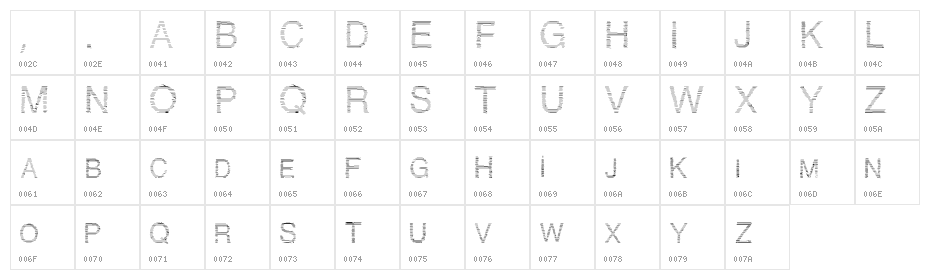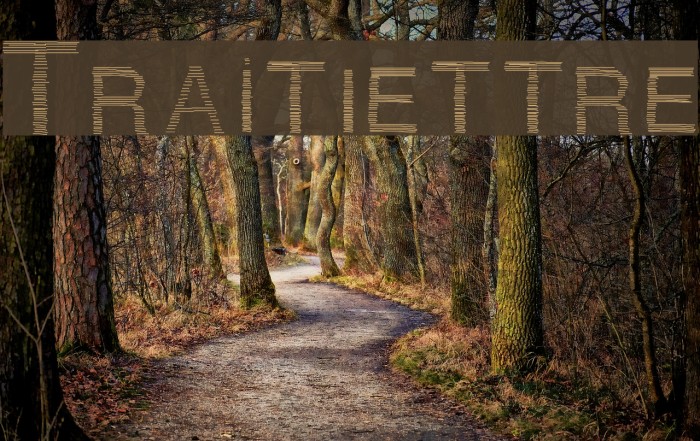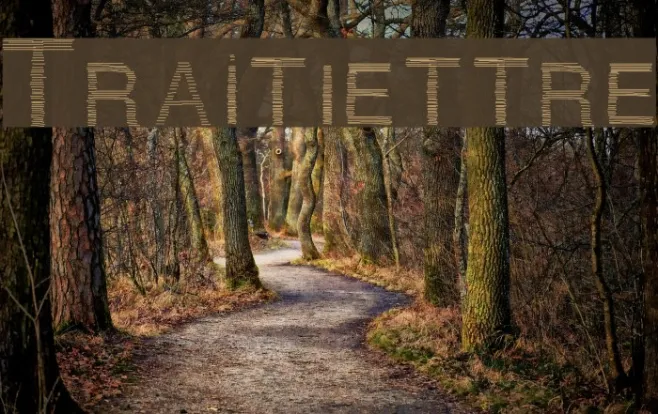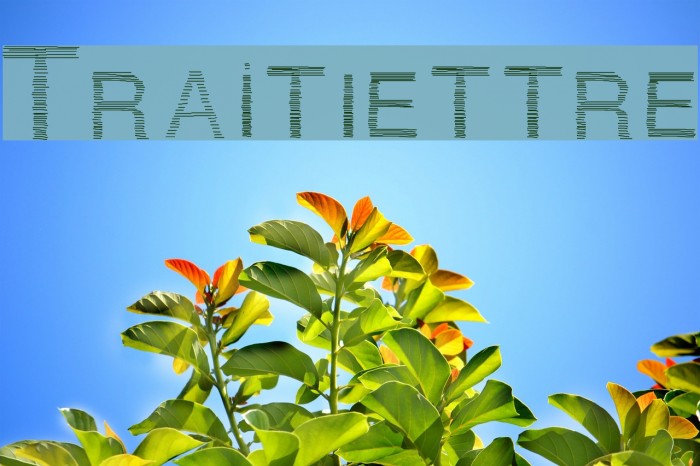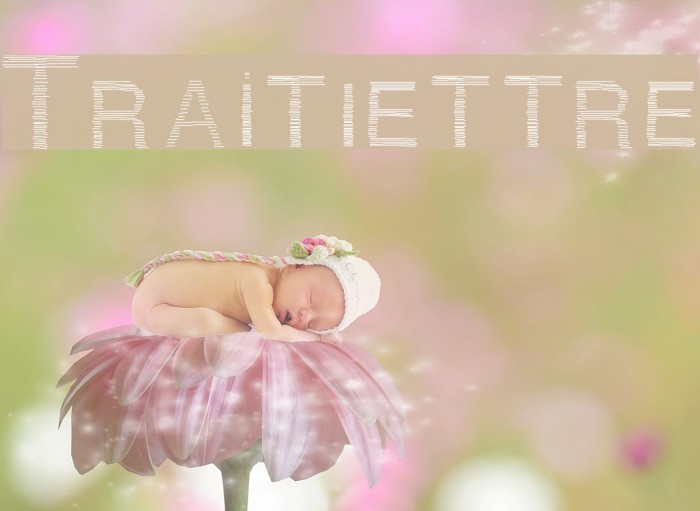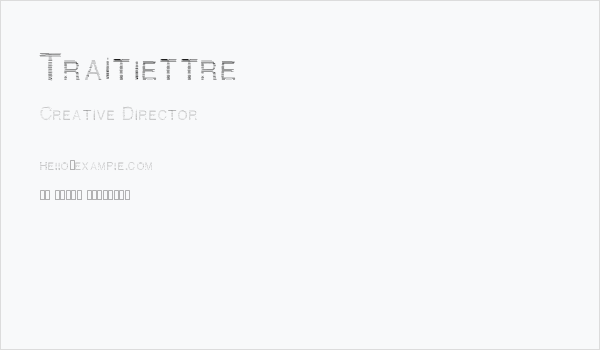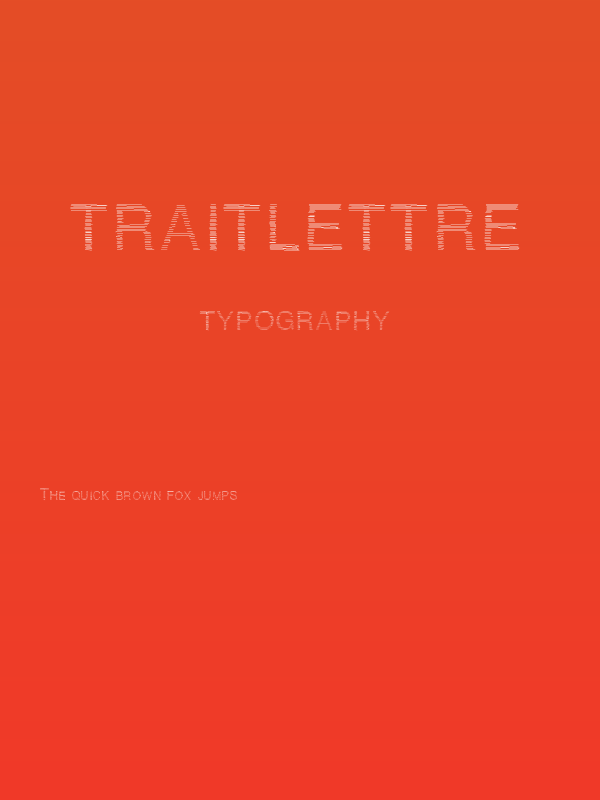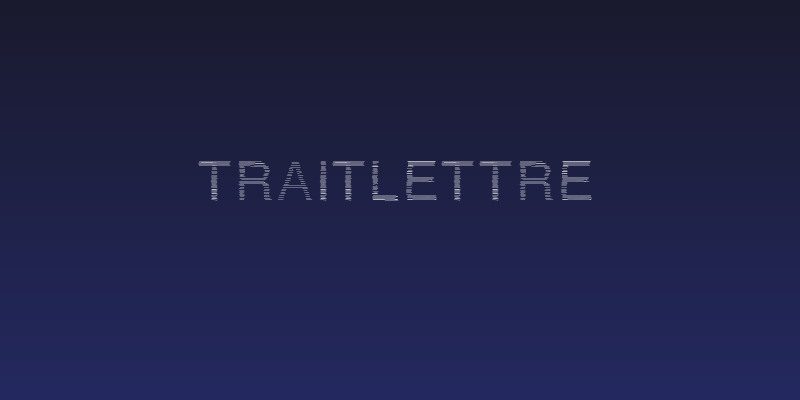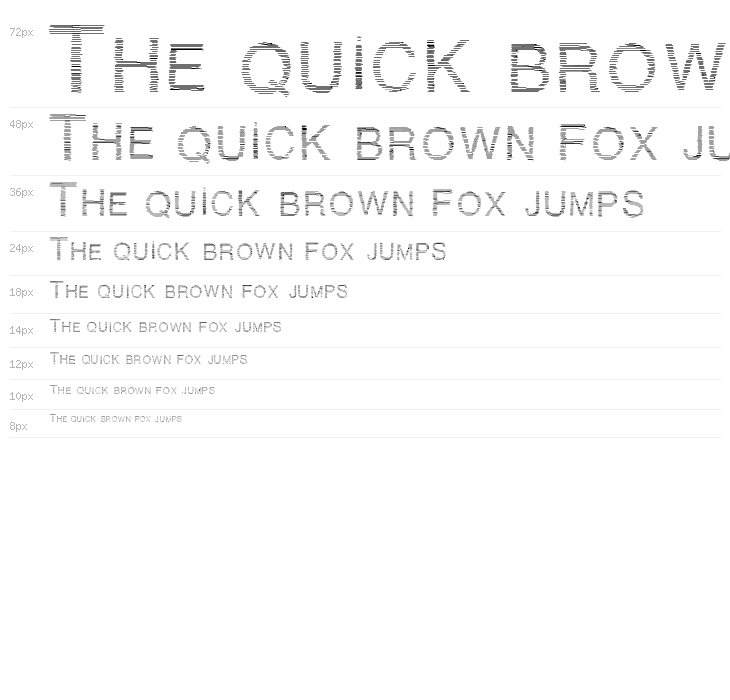
Traitlettre Font
Traitlettre Description
This font features a unique, artistic design with horizontal lines running through each character, creating a textured, striped effect. The uppercase letters are bold and evenly spaced, giving a sense of balance and modernity. The lowercase letters maintain the same stylistic elements, ensuring consistency throughout the typeface. The numerals and special characters are designed to match the overall aesthetic, making this font versatile for various creative applications. Its distinctive appearance makes it suitable for eye-catching designs.
| Proposed Projects | Ideal for branding, posters, album covers, and any project requiring a modern, artistic touch. |